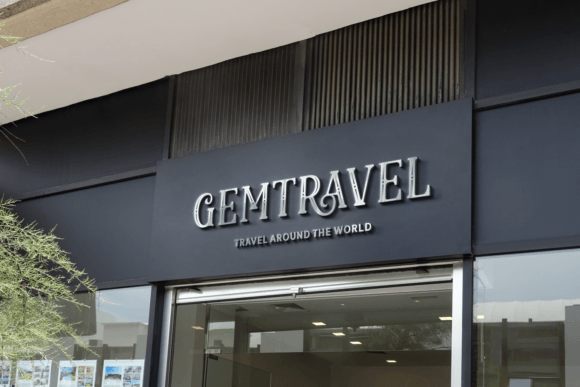
Glorious Christmas Font
Glorious Christmas is the ultima festive font. The splendid serifs end the beautifully rounded solemn characters and create a whimsical, exquisite, and magnificent look!